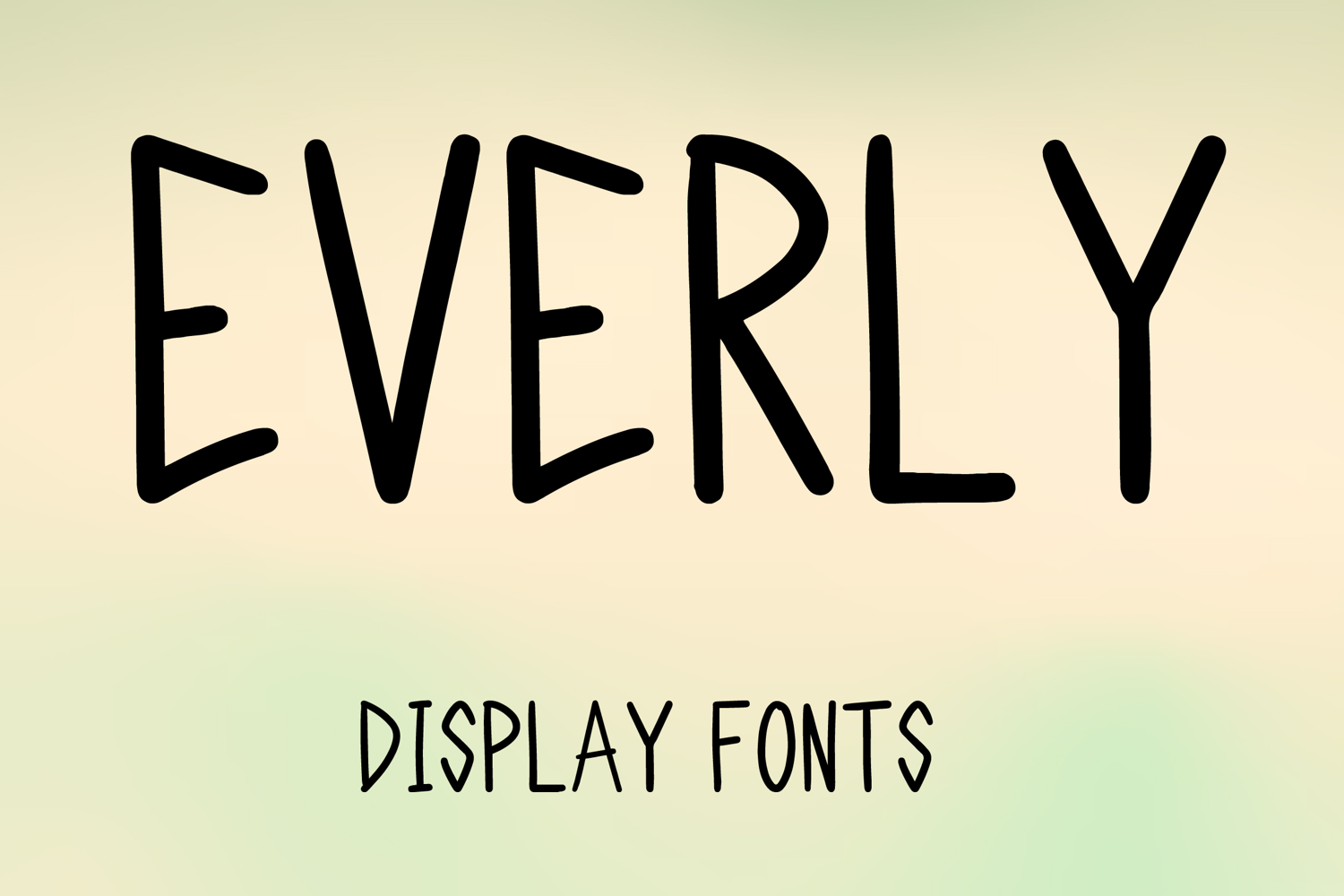
EVERLY
EVERLY is a tall handwritten display font with a clean playful style and modern minimalist charm. Its uppercase letterforms feature slender strokes, rounded corners, and slightly uneven handcrafted details that create a friendly, light, and eye-catching look. Designed with uppercase letters A–Z and numbers 0–9, EVERLY is perfect for branding, logos, posters, packaging, social media graphics, invitations, and creative projects that need a simple yet distinctive statement.